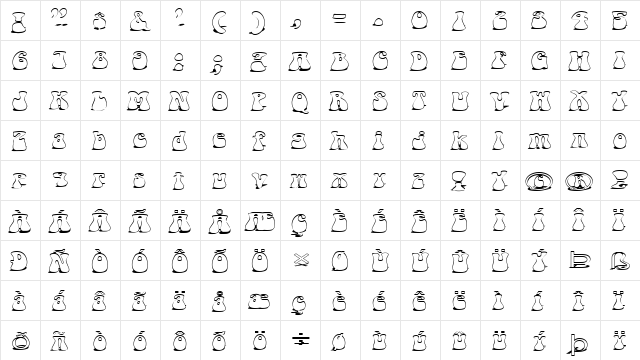
FZ JAZZY 14 SHADOW EX Normal
Design Context for FZ JAZZY 14 SHADOW EX Typeface
FZ JAZZY 14 SHADOW EX is built around its visual character rather than neutral utility — its distinctive forms are designed to make an impression at display sizes.
Font Pairing: Pair with a clean neutral sans-serif for body copy to let FZ JAZZY 14 SHADOW EX's character lead without overwhelming the composition.
Pro Tip: Use FZ JAZZY 14 SHADOW EX exclusively at display sizes — it was designed to be seen, not read at length. Let a neutral companion handle body copy.